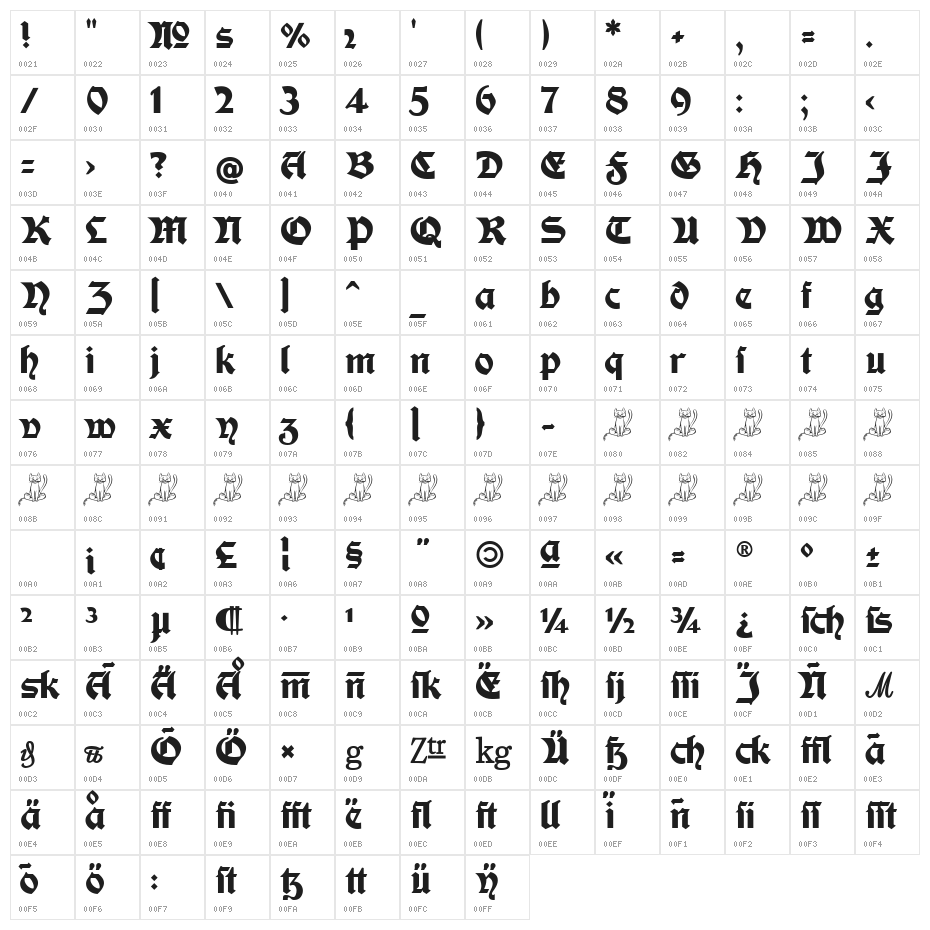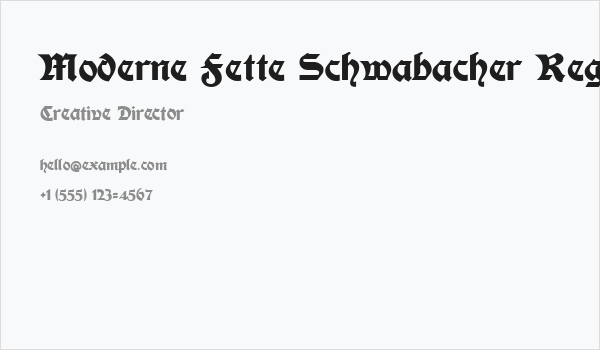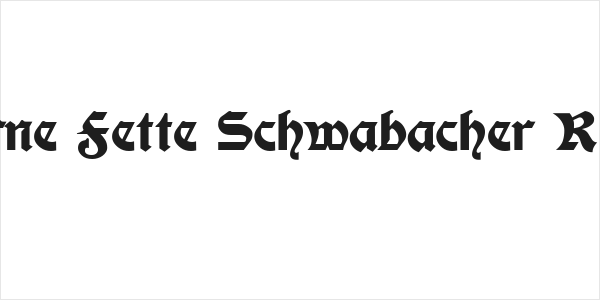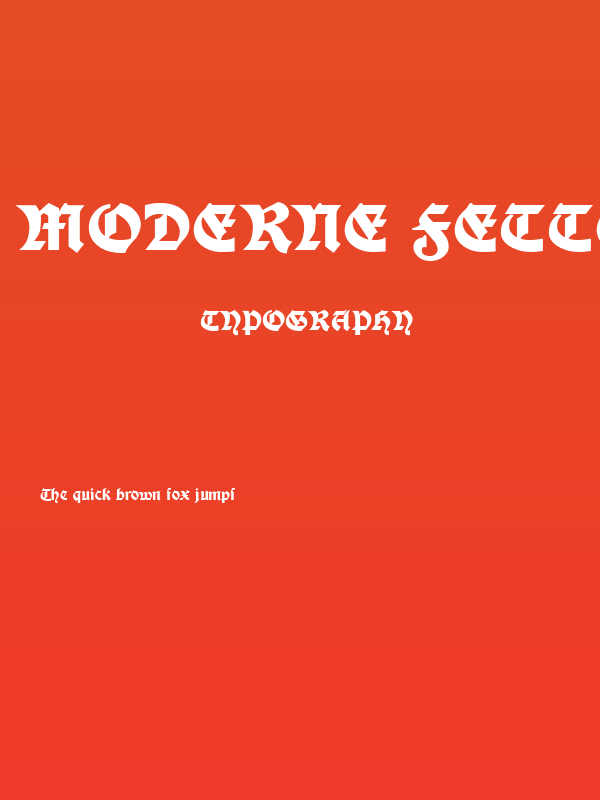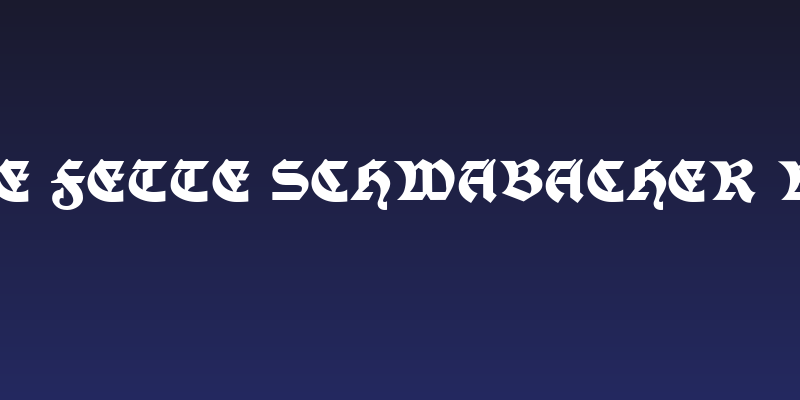
Moderne Fette Schwabacher Regular Font
Moderne Fette Schwabacher Regular Description
This font exhibits a bold and striking blackletter style, characterized by its thick, angular strokes and intricate detailing. The uppercase and lowercase letters are designed with a strong emphasis on vertical lines and sharp, pointed serifs, creating a dramatic and historical appearance. The numerals and special characters maintain this bold aesthetic, ensuring consistency across all glyphs. This font's design is reminiscent of traditional Gothic script, often associated with medieval manuscripts and historical documents.
| Use Case | Logos, Headlines, Decorative purposes |
| Proposed Projects | Ideal for projects requiring a historical or medieval theme, such as book covers, posters, or branding for events and products with a vintage or classic appeal. |